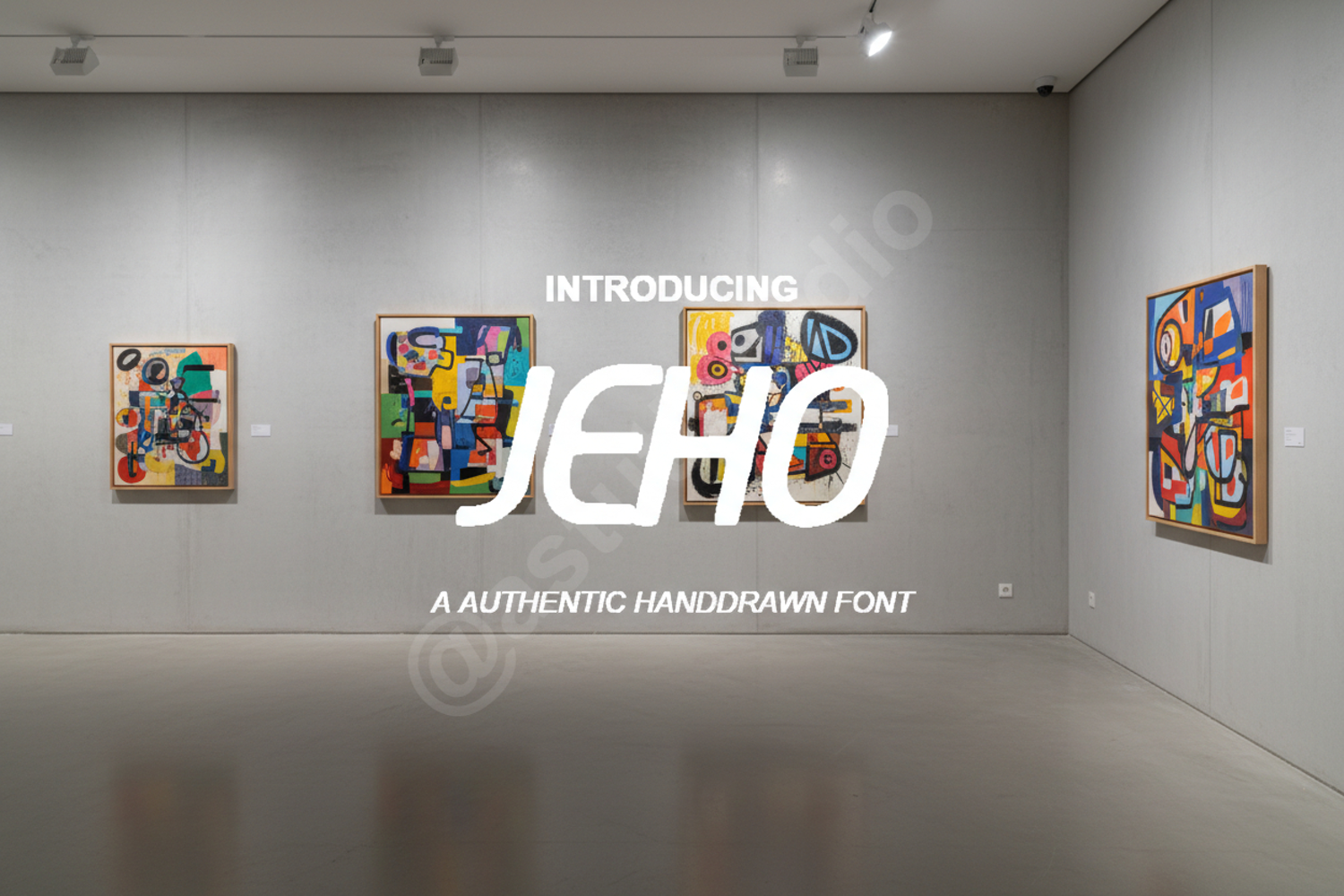
Jeho - Modern Minimalist Sans Serif
Jeho
INTRODUCTION
Elevate your design projects with Jeho, a premium modern sans serif font that embodies sophistication and versatility. Crafted with a focus on clean lines and balanced geometric proportions, Jeho offers a timeless aesthetic that bridges the gap between contemporary minimalism and professional elegance. Whether you are building a brand from scratch or refining an editorial layout, Jeho provides the clarity and impact your work deserves.